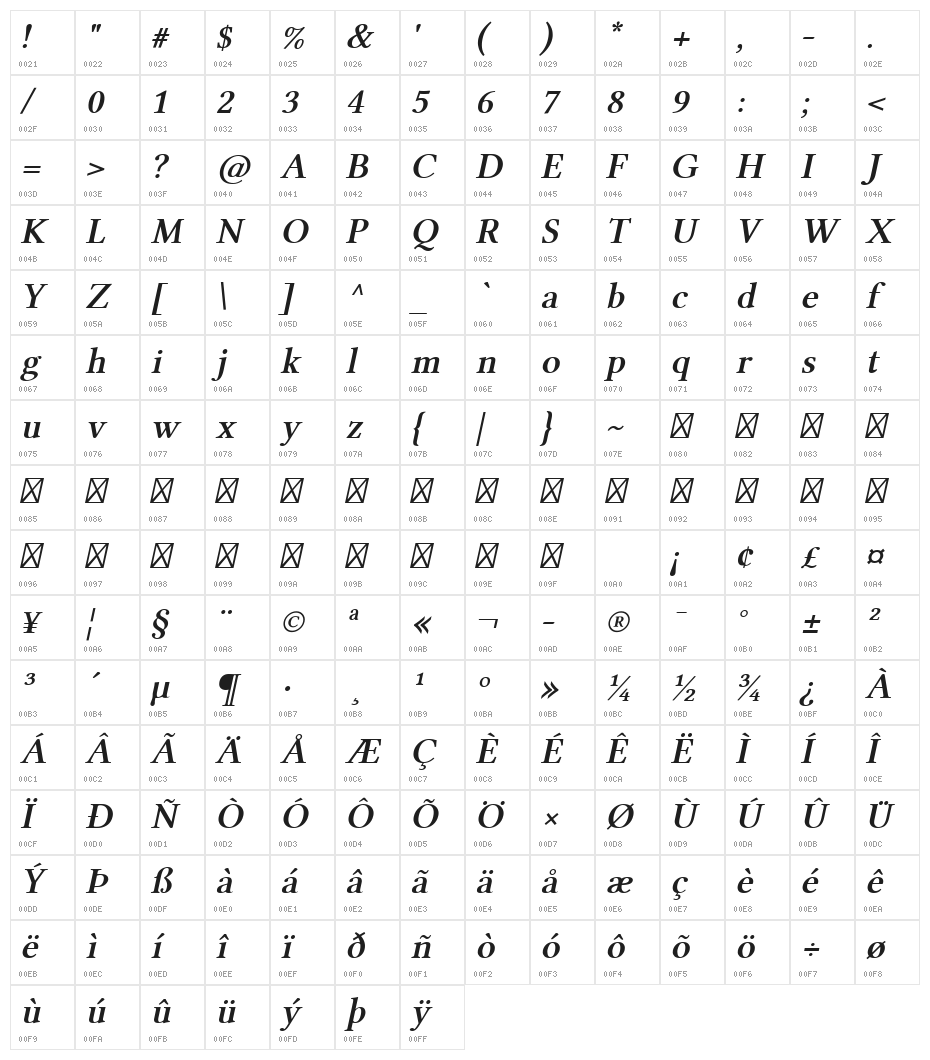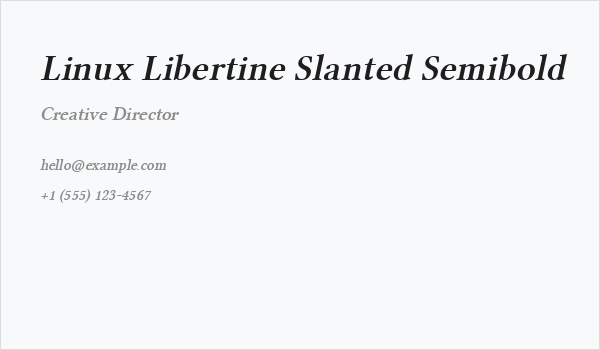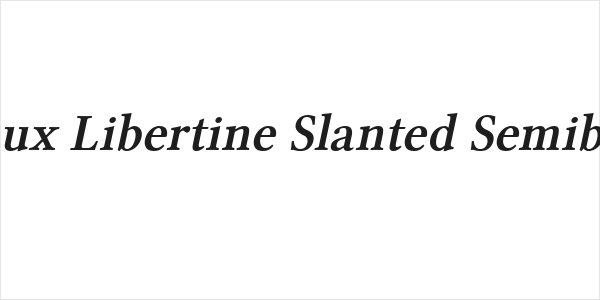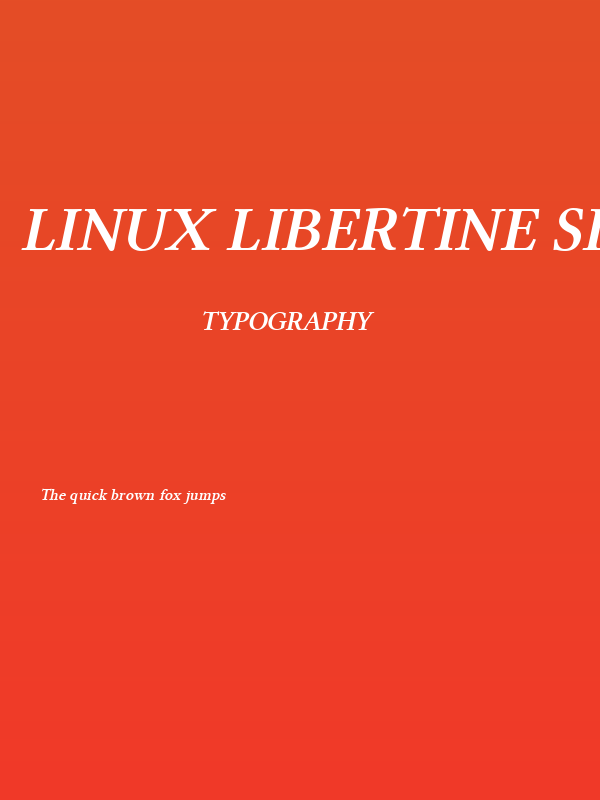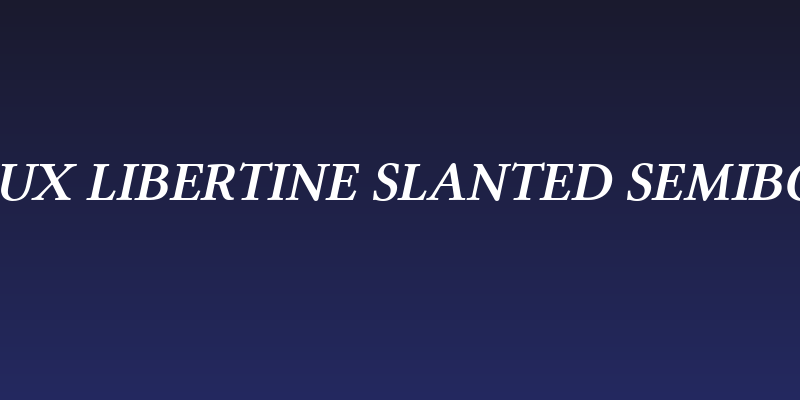
Linux Libertine Slanted Semibold Font
Linux Libertine Slanted Semibold Description
This font exhibits a classic serif style with a distinct slant, giving it an elegant and sophisticated appearance. The serifs are pronounced, providing a traditional look while maintaining readability. The uppercase letters are well-proportioned, and the lowercase letters have a smooth flow, enhancing the font's overall aesthetic. The numerals are clear and consistent with the font's style, making them suitable for both text and display purposes. The special characters are well-integrated, ensuring versatility in various contexts.
| Proposed Projects | Ideal for editorial design, book covers, formal invitations, and branding projects that require a touch of elegance. |